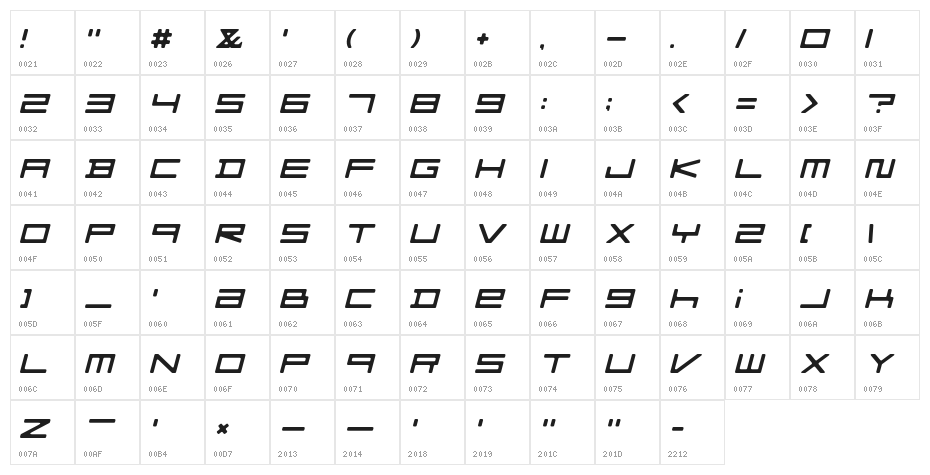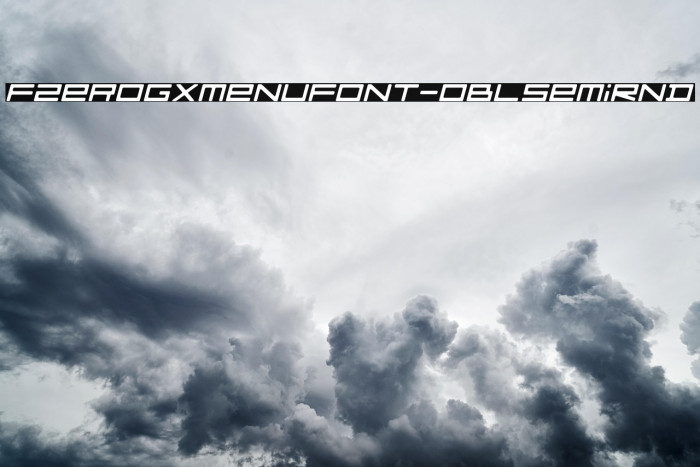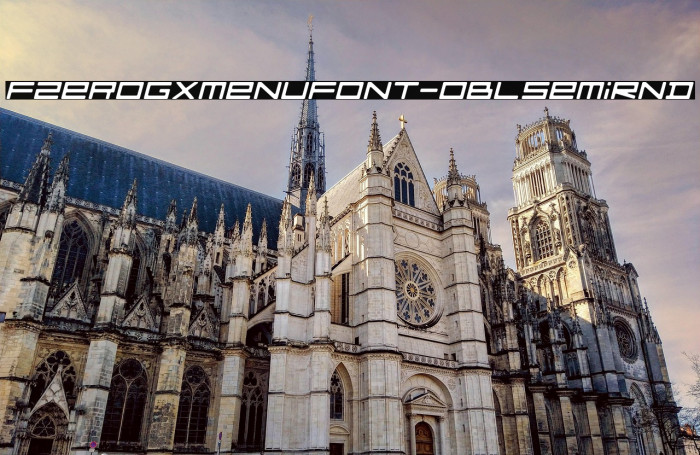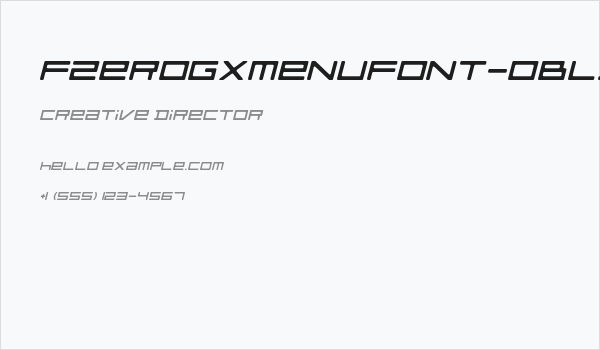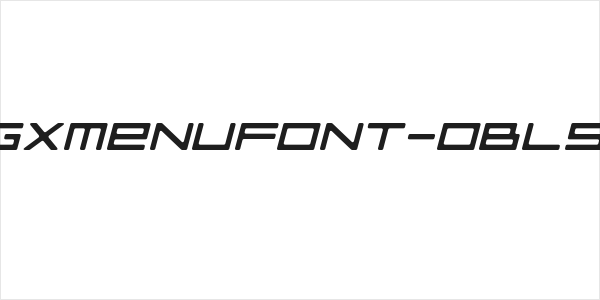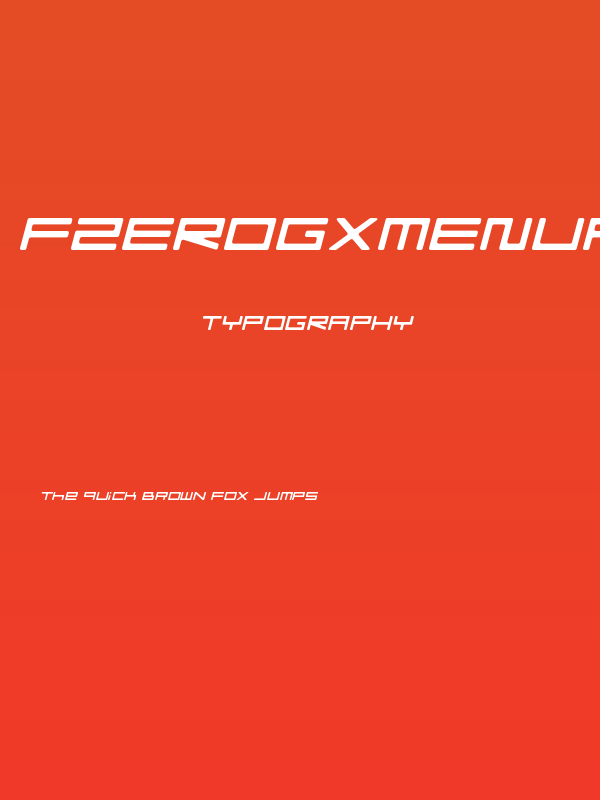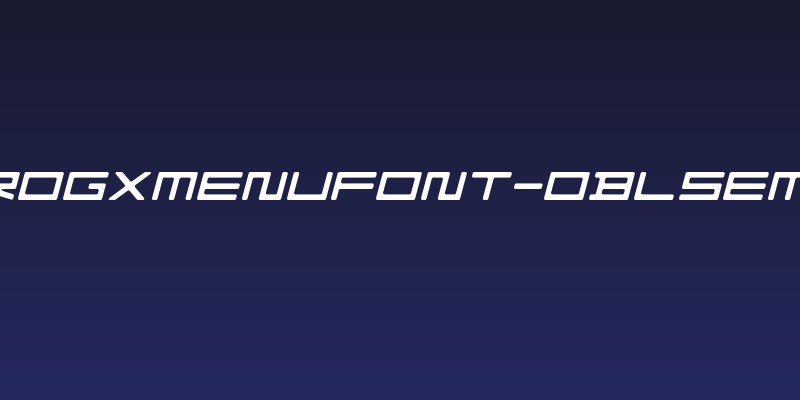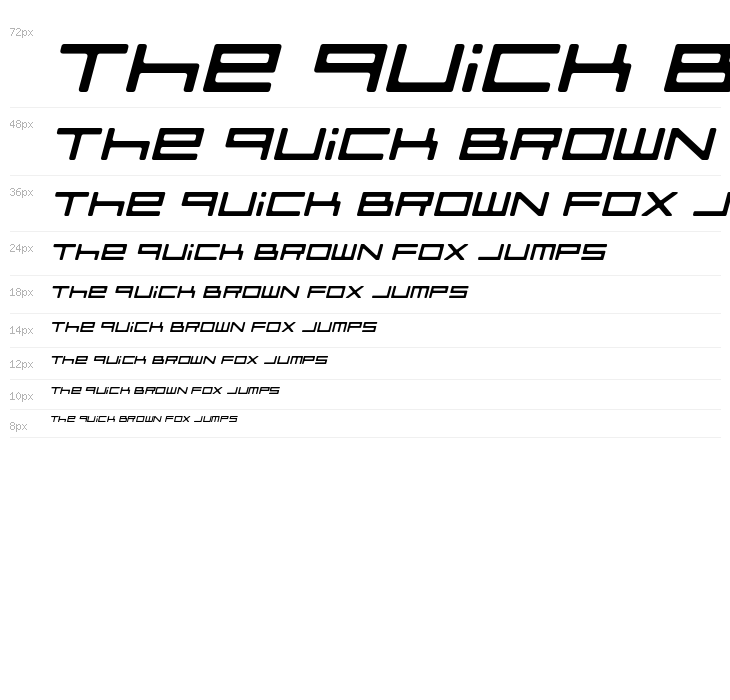
FZeroGXMenuFont-OblSemiRnd Font
FZeroGXMenuFont-OblSemiRnd Description
This font exhibits a sleek, futuristic design with a distinct geometric structure. The characters are slightly slanted, giving a sense of motion and dynamism. The uppercase and lowercase letters maintain a consistent style, with sharp angles and clean lines. The numerals are bold and prominent, matching the overall aesthetic. Special characters are uniquely styled, adding to the font's modern appeal. The uniformity in stroke width across characters provides a cohesive look, while the spacing between characters is balanced, ensuring readability.
Use CaseHeadlines, Logos, Digital interfaces
Proposed ProjectsIdeal for video game interfaces, tech branding, sci-fi movie posters, and modern digital displays.